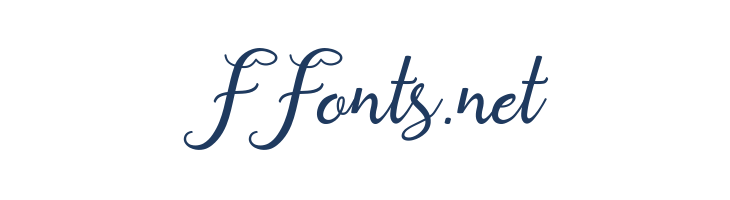
Cindy love art design Font
Cindy love art design Description
This font features an elegant and flowing script style, characterized by its smooth, cursive lines and graceful curves. The uppercase letters are distinct with their sweeping ascenders and descenders, creating a sense of movement and fluidity. The lowercase letters maintain a consistent style, with a slight slant that enhances the handwritten feel. Numbers and special characters are designed to match the overall aesthetic, ensuring a cohesive look across all text. This font is perfect for adding a personal touch to any design, with its sophisticated yet approachable appearance.
An elegant, flowing script font with smooth, cursive lines and graceful curves from Uncategorized fonts.
- Font: Cindy love art design
- Proposed Projects: Ideal for wedding invitations, greeting cards, branding, and logo design.
- Overall Style: Elegant
- Use Case: Logos, Invitations, Decorative text